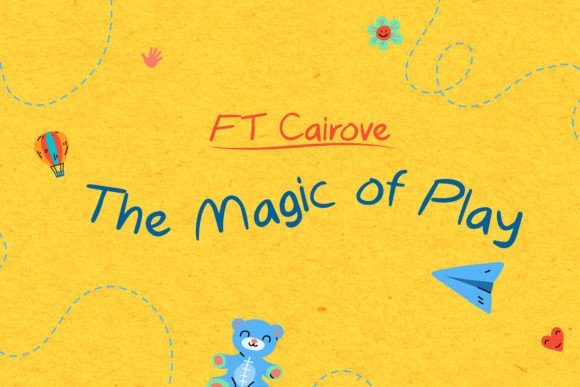
Introducing FT Cairove: The Delightful Handwriting Font for Children’s Projects
FT Cairove is a playful and charming handwriting font designed specifically for children’s projects. With its smooth, flowing strokes and friendly, hand-drawn style, FT Cairove captures the essence of fun and creativity, making it perfect for designs aimed at young audiences.
Key Features of FT Cairove
- Smooth and flowing strokes: FT Cairove’s smooth strokes give it a natural and effortless look, reminiscent of a child’s handwriting.
- Hand-drawn style: The font’s hand-drawn style adds a personal touch, making it feel approachable and lively.
- Easy to read: FT Cairove is designed to be easy to read while maintaining the lively energy of a child’s handwriting.
- Perfect for young audiences: The font’s cheerful and approachable look makes it ideal for designs aimed at young audiences.
Inspiration Behind FT Cairove
FT Cairove draws its inspiration from the natural, spontaneous movements of a child’s hand when drawing or writing. The font was designed to capture the joy and creativity that children express through their scribbles and playful writing styles.
The goal was to develop a font that feels lighthearted and fun, while still maintaining a level of clarity and legibility that makes it perfect for use in educational or playful contexts.
Design Elements of FT Cairove
FT Cairove combines simplicity with a friendly aesthetic. Its organic shapes and playful forms make it feel approachable and lively, bringing a personal touch that resonates with children and parents alike.
The font’s smooth curves and free-flowing lines were created to evoke the feeling of a handwritten note full of personality and warmth.
Usage Ideas for FT Cairove
FT Cairove is perfect for a variety of projects, including:
- Children’s books: Add a touch of whimsy and joy to your children’s book with FT Cairove.
- Educational materials: Make learning fun with FT Cairove’s cheerful and approachable look.
- Playful branding: Use FT Cairove to create a playful and engaging brand identity.
Benefits of Using FT Cairove
Using FT Cairove in your projects offers several benefits, including:
- Unique and playful look: FT Cairove’s unique and playful look will set your project apart from others.
- Engaging and fun: The font’s engaging and fun design will capture the attention of young readers.
- Easy to read: FT Cairove’s clear and legible design makes it easy for young readers to follow along.
Tips for Using FT Cairove
Here are some tips for using FT Cairove in your projects:
- Use it for headings and titles: FT Cairove’s playful look makes it perfect for headings and titles.
- Mix it with other fonts: Combine FT Cairove with other fonts for a unique and interesting look.
- Experiment with colors: FT Cairove looks great in a variety of colors, so don’t be afraid to experiment.
FT Cairove is a delightful and playful handwriting font designed specifically for children’s projects. With its smooth, flowing strokes and friendly, hand-drawn style, FT Cairove captures the essence of fun and creativity.
Whether you’re designing for educational materials, children’s books, or playful branding, FT Cairove will add a touch of whimsy and joy to your project.